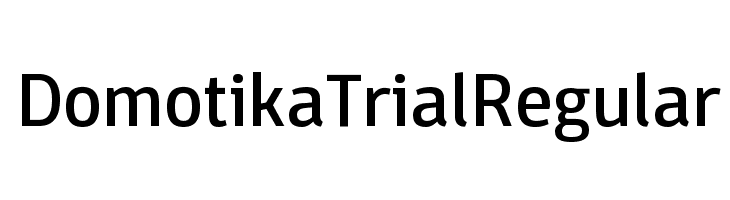
( Fonts by Dieter Schumacher )
A bold, italicized font with sharp, angular strokes and high contrast, exuding energy and modernity.
( Fonts by Dieter Schumacher )
A bold, angular font with a dynamic and geometric style.
( Zetafonts - www.zetafonts.com )
A bold, modern font with thick, uniform strokes and a geometric influence.
( Zetafonts - www.zetafonts.com )
A bold, italic font with a dynamic and energetic style.
( Zetafonts - www.zetafonts.com )
A bold, modern sans-serif font with clean, geometric lines.
( Zetafonts - www.zetafonts.com )
A clean, modern font with geometric precision and simplicity.
( Zetafonts - www.zetafonts.com )
A modern, elegant italic font with thin strokes and a sleek design.
( Zetafonts - www.zetafonts.com )
A bold, geometric font with a strong and modern presence.